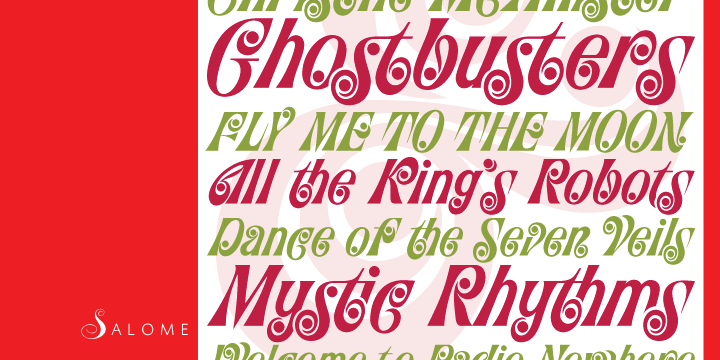
Salome Pro is a retro font published by Canada Type.
Salome is a revival, normalization and elaborate expansion of a 1972 film face called Cantini. The original film type, released by a tiny independent outfit called Letter Graphics, looked like it was hand drawn with little consideration for consistency in essential lettering flow measurements, like angles, stroke widths, and vertical metrics. All these issues have been resolved in this digital version, and the original character set, including the whole lot of alternates, was entirely redrawn and expanded to include even more alternates and many useful ligatures, as well as extended support for Latin-based languages.
Combining elements of early 20th century art nouveau with common 1960s and 1970s signage and poster lettering flair, Salome uses curls and curves to wave its fantastic shapes in a most hypnotic dance. Salome simply cannot be unseen. Just like its namesake, the female seduction icon, it does not hesitate to put all of its natural beauty and energy on display in order to get what it wants.